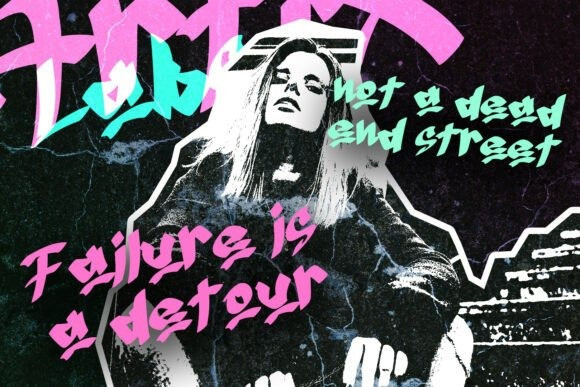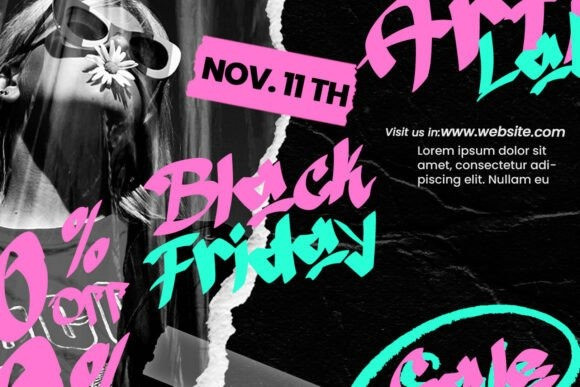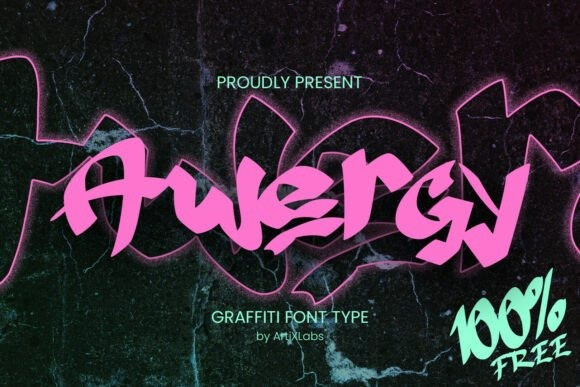
Awergy Graffiti Font by ArtiXLabs, is an incredibly unique graffiti font. Masterfully designed to become a true favorite, this font has the potential to bring each of your creative ideas to the highest level!